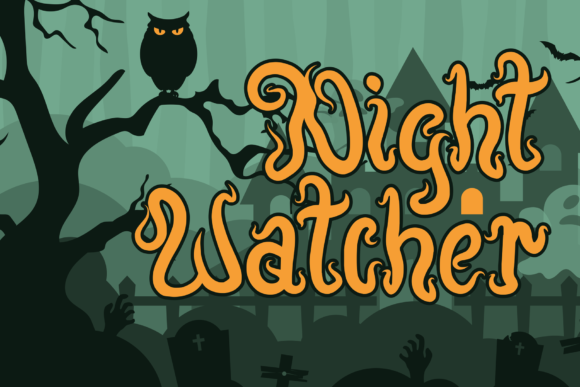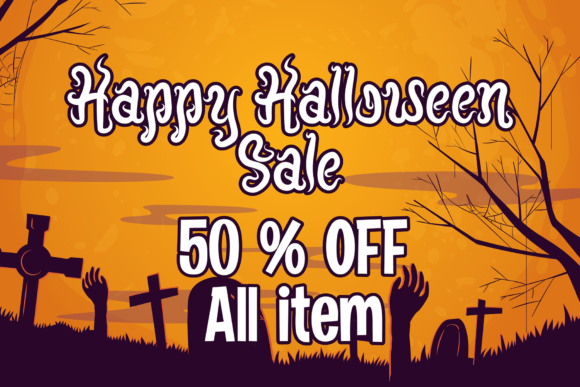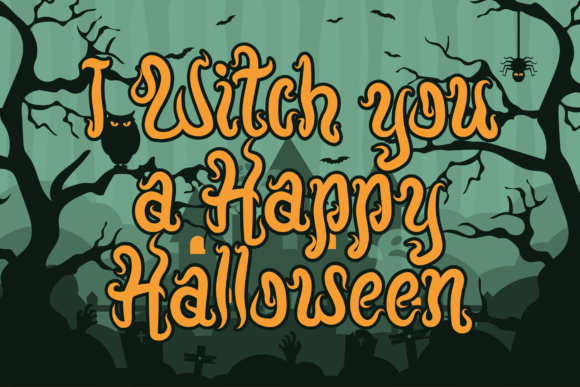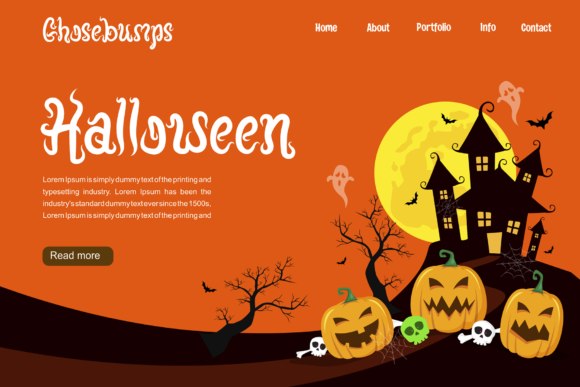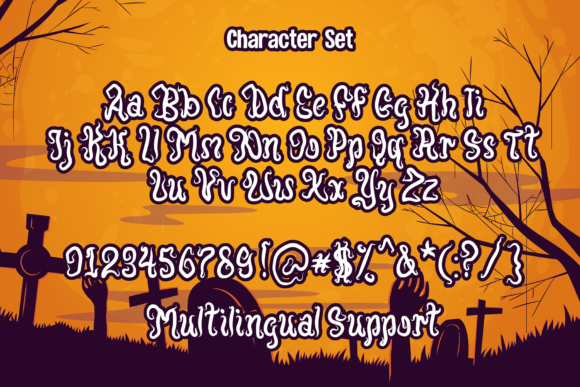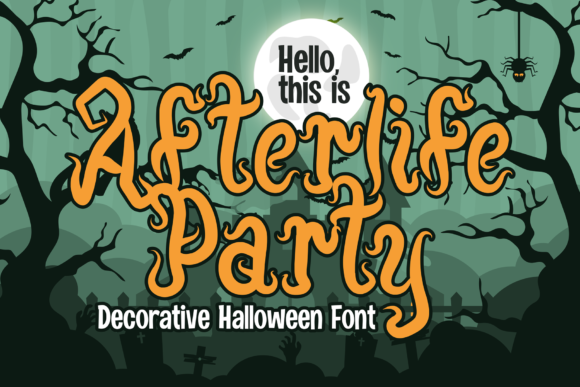
Introducing Afterlife Party Font: The Ultimate Display Font for Joyful Designs
Are you tired of using the same old fonts in your designs? Do you want to add a touch of whimsy and playfulness to your creative projects? Look no further than the Afterlife Party Font, a cute and quirky display font that’s sure to bring a smile to your face. In this article, we’ll take a closer look at this beautiful font and explore how it can elevate your designs to the next level.
What is Afterlife Party Font?
Afterlife Party Font is a unique and eye-catching display font that’s perfect for designers and crafters who want to add a dash of fun and personality to their work. This font is designed to be bold, playful, and attention-grabbing, making it ideal for use in a variety of creative projects, from party invitations and social media graphics to branding and advertising materials.
Key Features of Afterlife Party Font
- Cute and Quirky Design: Afterlife Party Font features a distinctive, hand-drawn design that’s both cute and quirky. Its playful curves and lines make it perfect for creating fun and engaging designs.
- Display Font: This font is specifically designed as a display font, making it perfect for use in headlines, titles, and other prominent text elements.
- Joyful Touch: With its lively and upbeat design, Afterlife Party Font is guaranteed to add a joyful touch to your designs.
Benefits of Using Afterlife Party Font
So why should you choose Afterlife Party Font for your next design project? Here are just a few benefits of using this amazing font:
- Stand Out from the Crowd: With its unique and eye-catching design, Afterlife Party Font is sure to make your designs stand out from the crowd.
- Add Personality to Your Designs: This font is perfect for designers who want to add a touch of personality and whimsy to their work.
- Perfect for a Variety of Projects: From party invitations and social media graphics to branding and advertising materials, Afterlife Party Font is versatile enough to be used in a wide range of creative projects.
How to Use Afterlife Party Font in Your Designs
Using Afterlife Party Font in your designs is easy. Here are a few tips to get you started:
- Pair it with Other Fonts: Try pairing Afterlife Party Font with other fonts to create a unique and visually appealing design.
- Experiment with Colors: Don’t be afraid to experiment with different colors and textures to add depth and interest to your design.
- Use it for Headlines and Titles: Afterlife Party Font is perfect for use in headlines and titles, where its bold and playful design can really shine.
If you’re looking for a font that will add a touch of fun and personality to your designs, look no further than Afterlife Party Font. With its cute and quirky design, joyful touch, and versatility, this font is perfect for designers and crafters who want to create engaging and eye-catching designs. So why wait? Download Afterlife Party Font today and start creating designs that will make your audience smile!
- Is Afterlife Party Font easy to read?: While Afterlife Party Font is a display font, it’s still easy to read, even at smaller sizes.